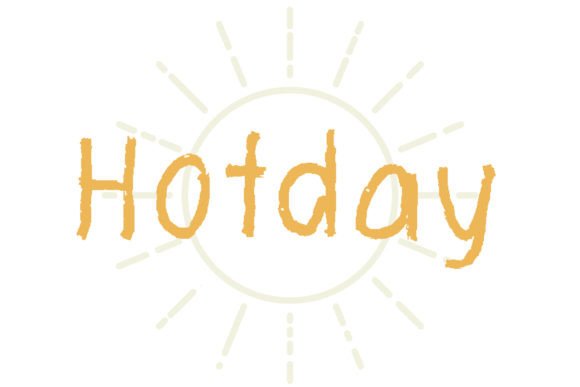
Hot Day: A Handmade Display Font with Outer Notches for Creative Projects
In the world of design, finding the right font can make all the difference in capturing attention and conveying personality. Hot Day is a unique handmade display font that stands out due to its outer notches and casual charm. Perfectly suited for greeting cards, posters, social media content, and product designs like mugs or t-shirts, Hot Day offers a versatile solution for creators who want their message to feel personal and eye-catching.
What Makes Hot Day Unique?
Hot Day is more than just another decorative typeface—it's a creative tool designed to evoke warmth, authenticity, and approachability. The font features carefully crafted outer notches on many characters, giving it a hand-drawn appearance that feels both modern and nostalgic. These subtle imperfections add character and help Hot Day stand apart from standard sans-serif or serif fonts.
Unlike mass-produced digital fonts, Hot Day carries a sense of individuality and craftsmanship. This makes it ideal for projects where a human touch is essential. Whether you're designing a logo for a local café or creating a motivational quote for a T-shirt, Hot Day brings an expressive flair that resonates with audiences looking for something real and relatable.
Common Design Challenges Solved by Hot Day
Designers often face challenges when trying to balance style and readability. Many display fonts are too ornate to be legible at smaller sizes or don't fit well within certain themes. Others may look too formal for casual applications like social media posts or greeting cards. Hot Day bridges this gap by offering a distinctive yet clear aesthetic that works across various platforms and formats.
Practical Applications of Hot Day
The versatility of Hot Day means it can be used in a wide range of creative scenarios. Here are some practical applications where this font truly shines:
1. Greeting Cards and Invitations
Greeting cards benefit greatly from typographic warmth. Hot Day adds a personal touch that printed cards often lack. Its outer notches give each letter a sense of uniqueness, making the card feel more like a handwritten message than a mass-produced item. Consider using Hot Day for birthdays, weddings, or thank-you notes—any occasion where sincerity and charm are key.
2. Social Media Content
With the rise of visual storytelling on platforms like Instagram, Pinterest, and Facebook, having a standout font is crucial. Hot Day’s casual, artistic style fits naturally into lifestyle brands, wellness pages, or small business promotions. Pair it with minimalist backgrounds or soft gradients to highlight its natural texture and enhance overall aesthetics.
3. Product Packaging and Merchandise
Products such as mugs, shirts, and tote bags often rely on short, impactful phrases. Hot Day excels in these environments because it doesn’t require long blocks of text to make an impression. Its outer notches create a tactile feel even in digital renderings, which translates well into print and screen-based merchandise. Just ensure the font size is large enough for easy reading and that colors contrast well with the background.
4. Poster and Banner Designs
Posters and banners need to grab attention quickly. Hot Day’s bold and expressive nature makes it ideal for headlines or taglines. Whether promoting a summer event, a local festival, or a motivational campaign, this font can amplify your message and make your visuals more engaging. It pairs especially well with bright colors and organic shapes to create a cohesive theme.
How to Use Hot Day Effectively
While Hot Day is visually appealing, its best results come from thoughtful application. Here are some tips to maximize its impact:
1. Use Sparingly: As a display font, Hot Day should primarily be used for headings or short text rather than body copy. Overuse can reduce readability and overwhelm the viewer.
2. Pair with Simpler Fonts: To maintain balance in your design, pair Hot Day with a clean, neutral font for supporting text. This ensures your message remains clear while still being stylistically rich.
3. Experiment with Color: The notched edges and irregular spacing of Hot Day offer opportunities to play with color fills or outlines. Try layering different shades or adding subtle shadows to emphasize depth and dimension.
4. Test on Different Surfaces: Before finalizing any print work, test how Hot Day looks on the intended surface—whether it’s fabric, paper, or digital screens. Adjustments in weight or spacing might be necessary for optimal visibility.